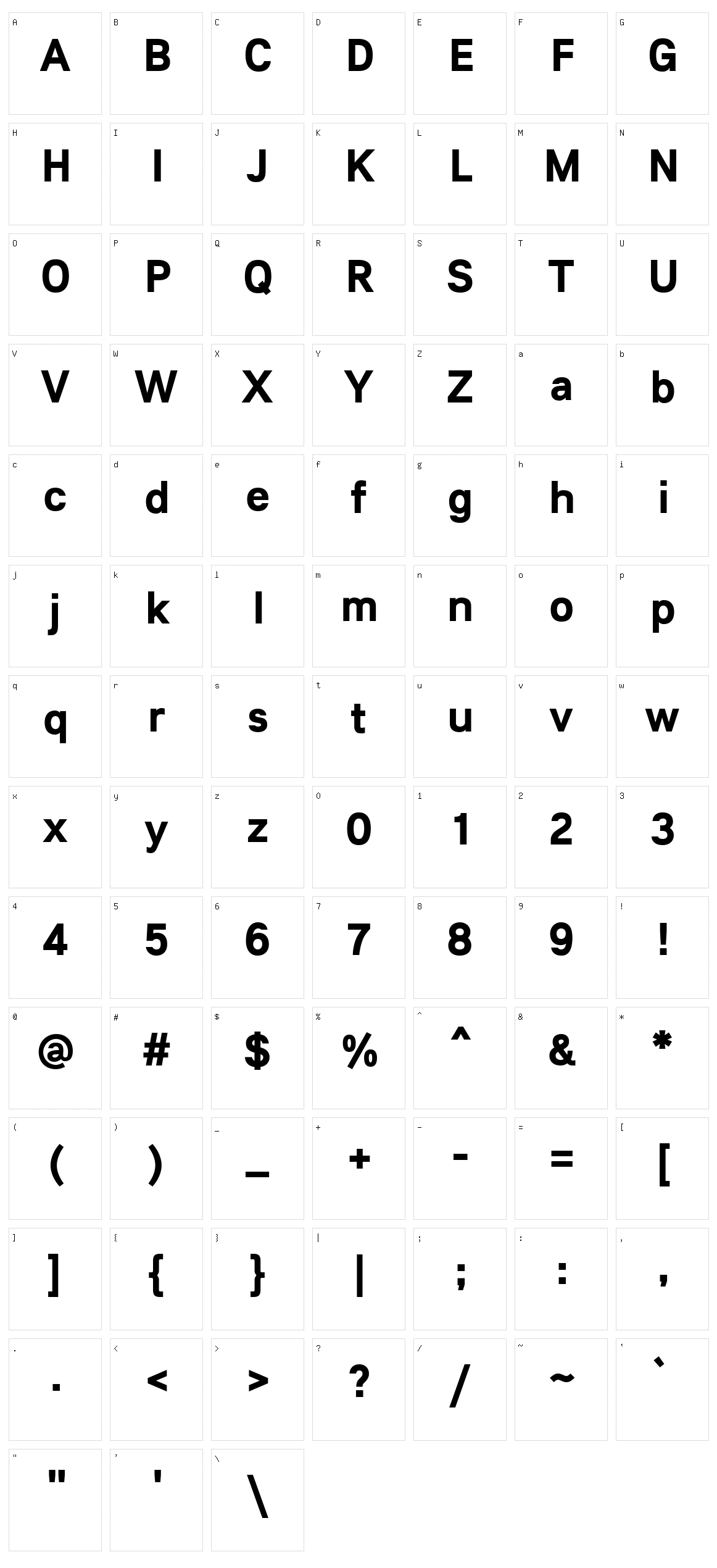
The free font Lunchtype 21 is carefully designed by YesYesNo, showcasing a thoughtful balance of creativity and usability and falls under the Sans serif font style. When you download the ZIP file, it contains only 198.51 KB of font files, making it lightweight and quick to download. Please review the license details below to understand permitted usage and distribution rights. If license information is not available, we recommend using this font for personal projects only or contacting the author directly for commercial usage permissions.